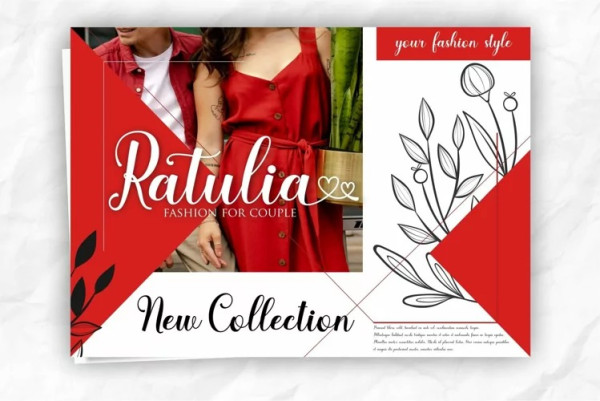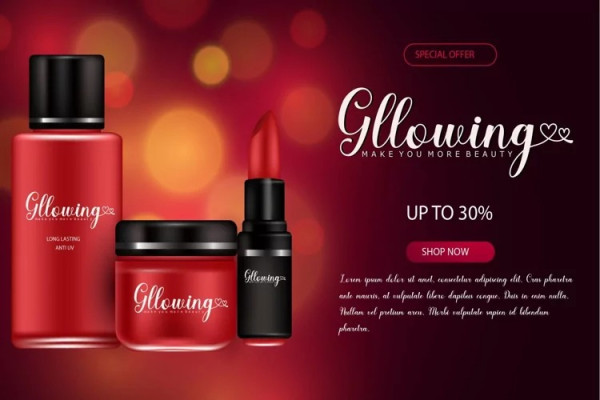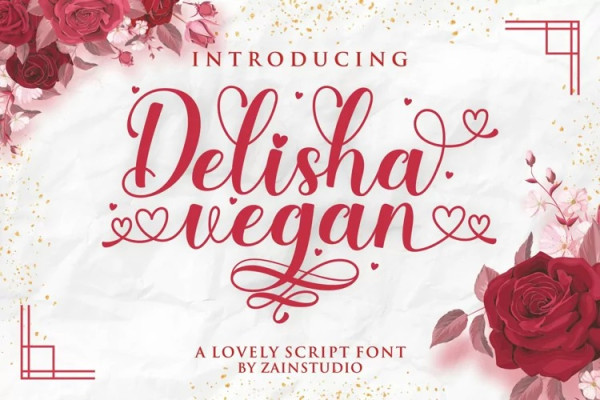
Delisha Vegan Font
Delisha Vegan Font is a modern calligraphy font with special heart characters. It can add a romantic touch to any crafting project! And this font that is perfect for a variety of designs.
Its natural handwriting makes it suitable for logotype,Cricut, Silhouette, crafting, wedding invitations, Valentine’s Day designs, and much more!